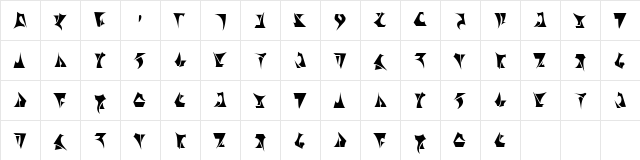
Complete Klinganese Plain glyph index. Displaying only characters natively supported by Klinganese Plain font.
Klinganese is a composed and adaptable typeface that performs quietly and consistently across a wide range of design contexts.